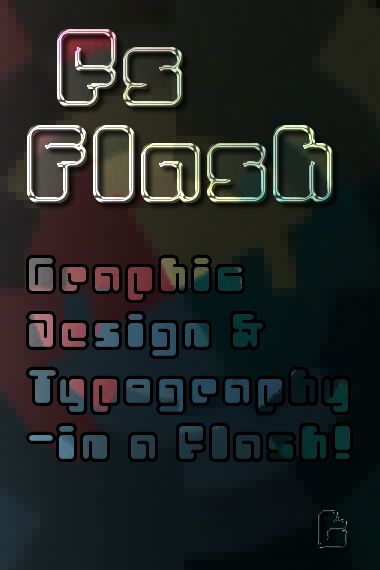
There is something 'cuddly' about this design, I like it a lot. 10/10
Precious!
very cool font, love it, great design as usual
Impressive!
Pretty!
Very pretty letters. Full of potential for text effects. I would only complain about the I,J,1: those symmetrical indentations don't look nice. Number 8 needs a twist or some asymmetry. All other glyphs are very playful and happy. The text composed with fs Flash is quite legible. 10/10
Very cool, congrats on the TP. 10/10
I love this!